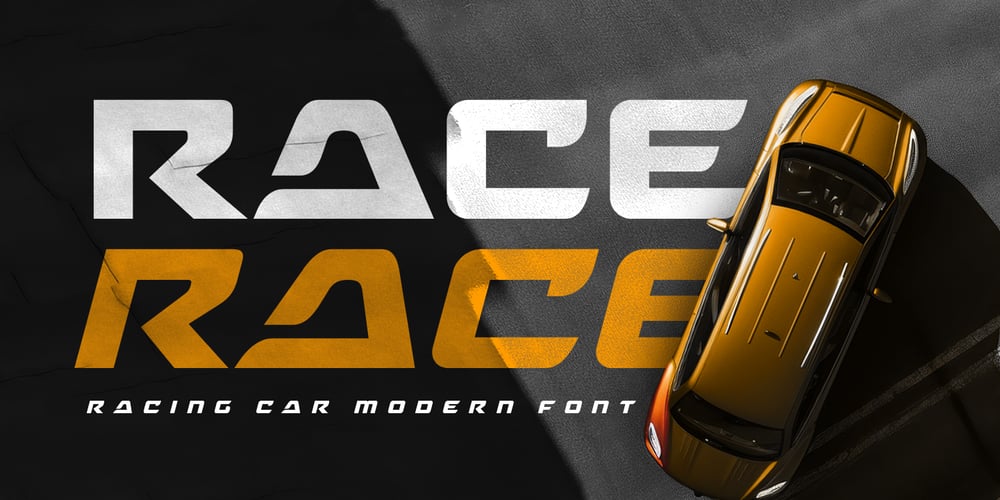
Race Font Family was designed by Zamroni Hamzah and published by Sensatype Studio. Race contains 2 styles and family package options. Race is a Modern Ultra Sport font that created special for Branding, Title and more stand out typography for sport and action. It’s so perfect to add your style and headline overview for sport, technology, actions, and fighting theme. And specially for this font, we crafted for bold action style and modern feels so enjoy to create any project that will show your main idea out.Race Racing Car Modern font ready with: Creative characters prepared to get best results Ready with Regular and Italic Version 4 files format already Preview as a inspirations that you can do with Pace font Ready with All Uppercase characters Wish you enjoy our font. 🙂